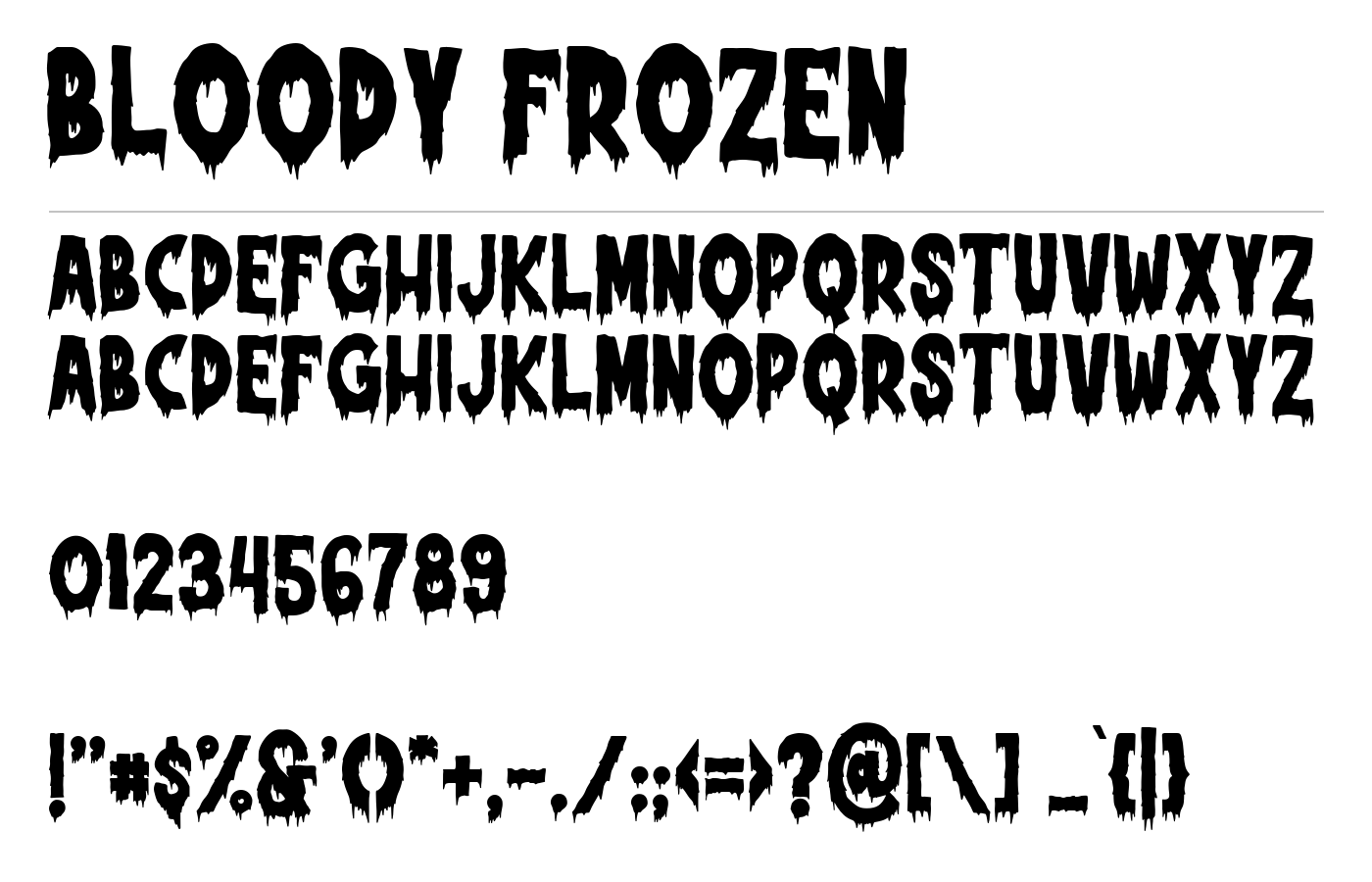
Bloody Frozen is a bold, display sans serif font with a sharp, jagged style that mimics dripping icicles or melting ice. Its heavy weight and dramatic, irregular edges give it a spooky, eerie vibe perfect for horror, thriller, or winter-themed designs. This font works best for eye-catching headlines, posters, and branding that need a strong, chilling impact.
Bloody Frozen Font
About Bloody Frozen Font
| Font family | Bloody Frozen Font |
| Designer | Kamukita studio |